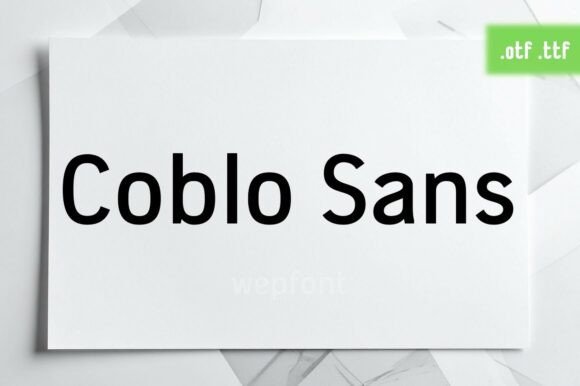
Unleash the Power of Modern Elegance
You know that moment when you finally find the perfect font to bring your design to life? It’s like the missing piece of a puzzle, and everything falls into place. For designers seeking to craft compelling narratives and impeccable designs, the search is over. Introducing Coblo Sans Font, a sans-serif masterpiece that pairs clean, contemporary lines with harmonious symmetry.
This font is more than just a tool – it’s a powerful medium that echoes with assurance. Its flawless legibility across diverse scales and platforms makes it an invaluable asset for designers. With Coblo Sans Font, you can rest assured that your message will be truly absorbed, not just heard. Whether you’re working on a branding project, a website, or a marketing campaign, this font is sure to deliver.
Coblo Sans Font Key Features
- Font Family: Coblo Sans
- Unique Characteristics: Geometric sans-serif design, clean and modern aesthetic, highly legible and versatile for use in various contexts
- Language Support: Supports multiple languages, including Latin, Cyrillic, Greek, and more, making it a great choice for global applications
Coblo Sans Font Review
As a designer, I’ve had the chance to work with a lot of fonts, and I’ve got to say, Coblo Sans is a solid addition to any designer’s toolkit. ✨ Here are a few things I like about it:
- Its clean and minimalist aesthetic makes it perfect for digital design, especially when you need to convey a sense of simplicity and ease of use.
- The font is highly legible, even at small sizes, which is crucial for digital interfaces where readability can make or break the user experience.
- Coblo Sans is also highly versatile, and works well in both body text and headings.
However, there are a few limitations I’ve noticed: ⚠️
- The font lacks a strong personality, which might make it harder to stand out in crowded design spaces.
- It’s not ideal for use in print materials, where a more tactile experience is often desired.
Overall, I’d give Coblo Sans 4 out of 5 stars. It’s a reliable and versatile font that’s perfect for digital design, but might not be the best choice for more complex or creative projects.
For best results, use Coblo Sans in headings and titles to create a clean and modern look.
Use Coblo Sans to create a cohesive brand identity across all your design materials.
Use Coblo Sans to add a touch of modernity to your presentations and documents.
Use Coblo Sans for:
– Headings and titles
– Digital signage and displays
Remember to pair Coblo Sans with a clear and concise design to get the most out of it.
Inter is a sans-serif font designed by Rasmus Andersson. It is a highly legible font suitable for body text and is known for its versatility. Inter has a more neutral tone compared to Coblo Sans, making it a good choice for everyday use.
Project Ideas Using Coblo Sans Font
Mood Board Magazine
Yes, Coblo Sans supports a wide range of Unicode characters, including Latin, Greek, Cyrillic, and many special symbols. This makes it an excellent choice for designing multilingual interfaces, documents, and publications.